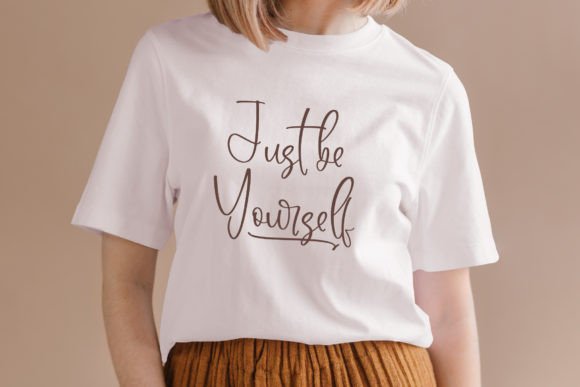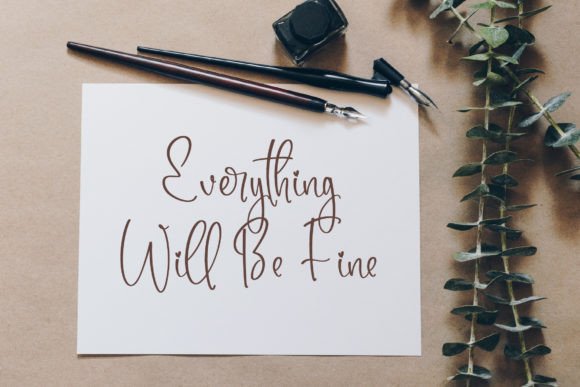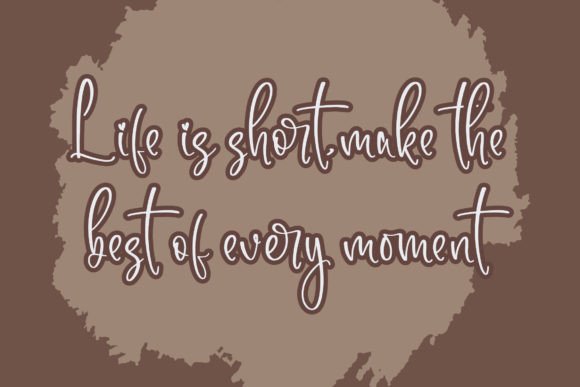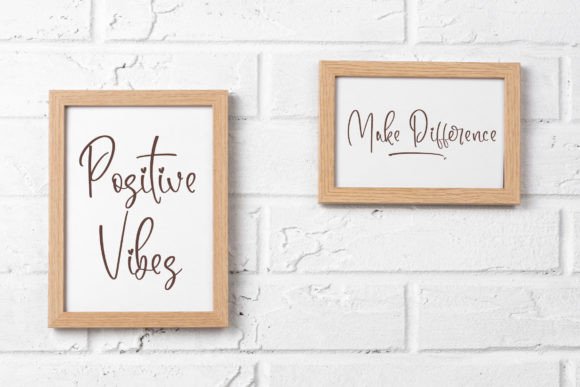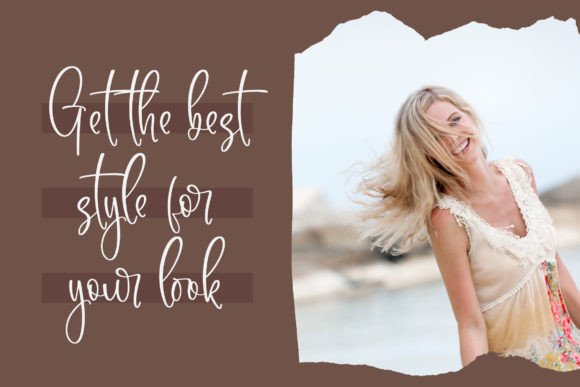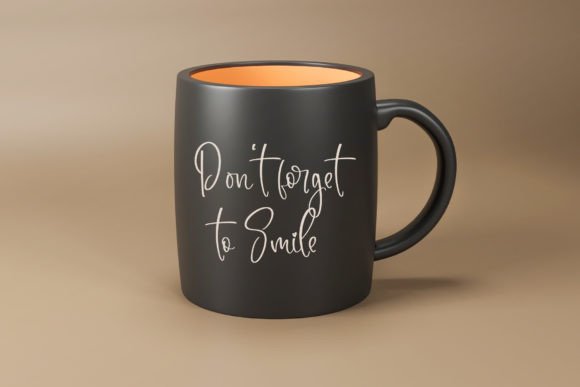
Introduction to Pillmorales Font
Pillmorales is a modern, delicate, and flowing handwritten font.
Use this font for various design ideas such as mugs, t-shirt designs, eye-catching logo designs, greeting cards, and many more This font will add a cute touch to your designs.